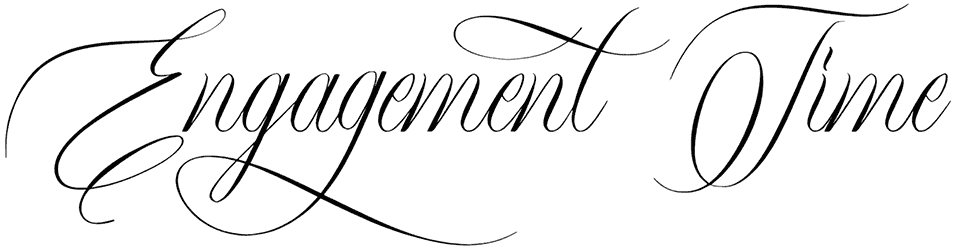
Engagement Time Font
If you are frustrated with wasting a lot of time and energy on finding a suitable funeral font to design unique, creative ideas such as wedding invitations, greeting cards, applications, branding projects, or product packaging, we have a special offer for you, like Engagement Time.
Since it is able to convey a sense of delicacy, fierceness, glamour, or softness to the audience’s minds, not supporting numbers would never be a serious problem in the middle of designing eye-catching content.